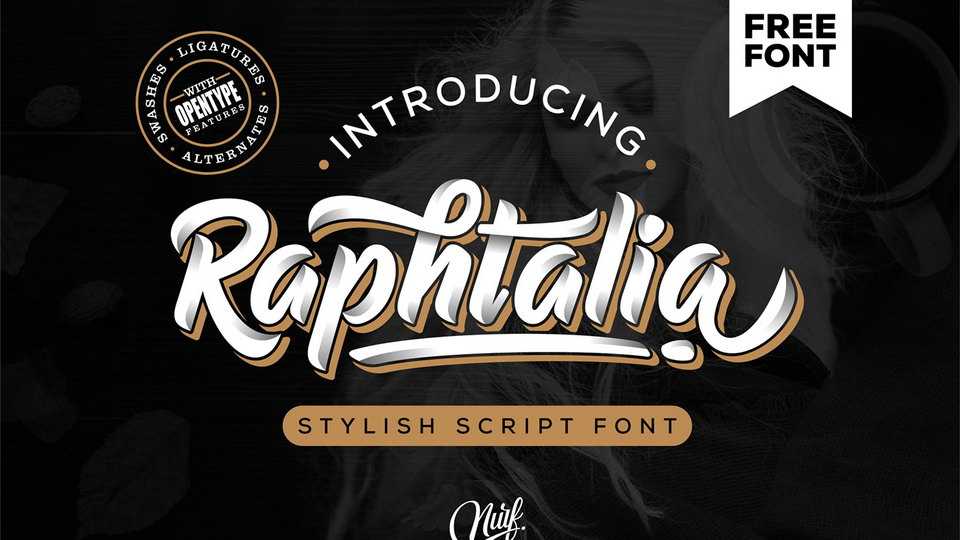
Download Raphtalia font, a fun and bold hand lettered script with a unique vintage appeal. This font designed with a distinct retro feel and lovely elements to make your design looks stylish and unique.
Designer: Nurf Designs